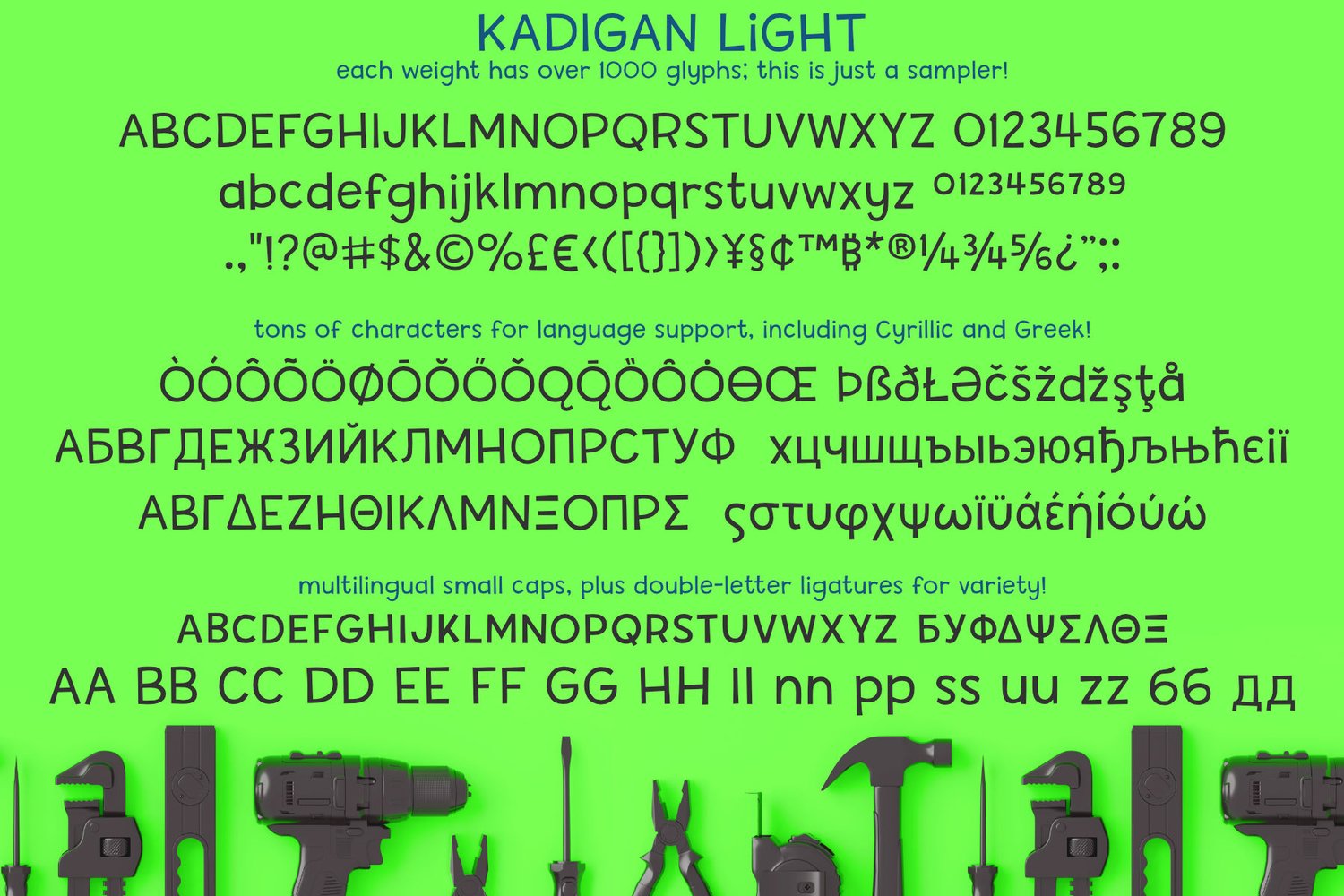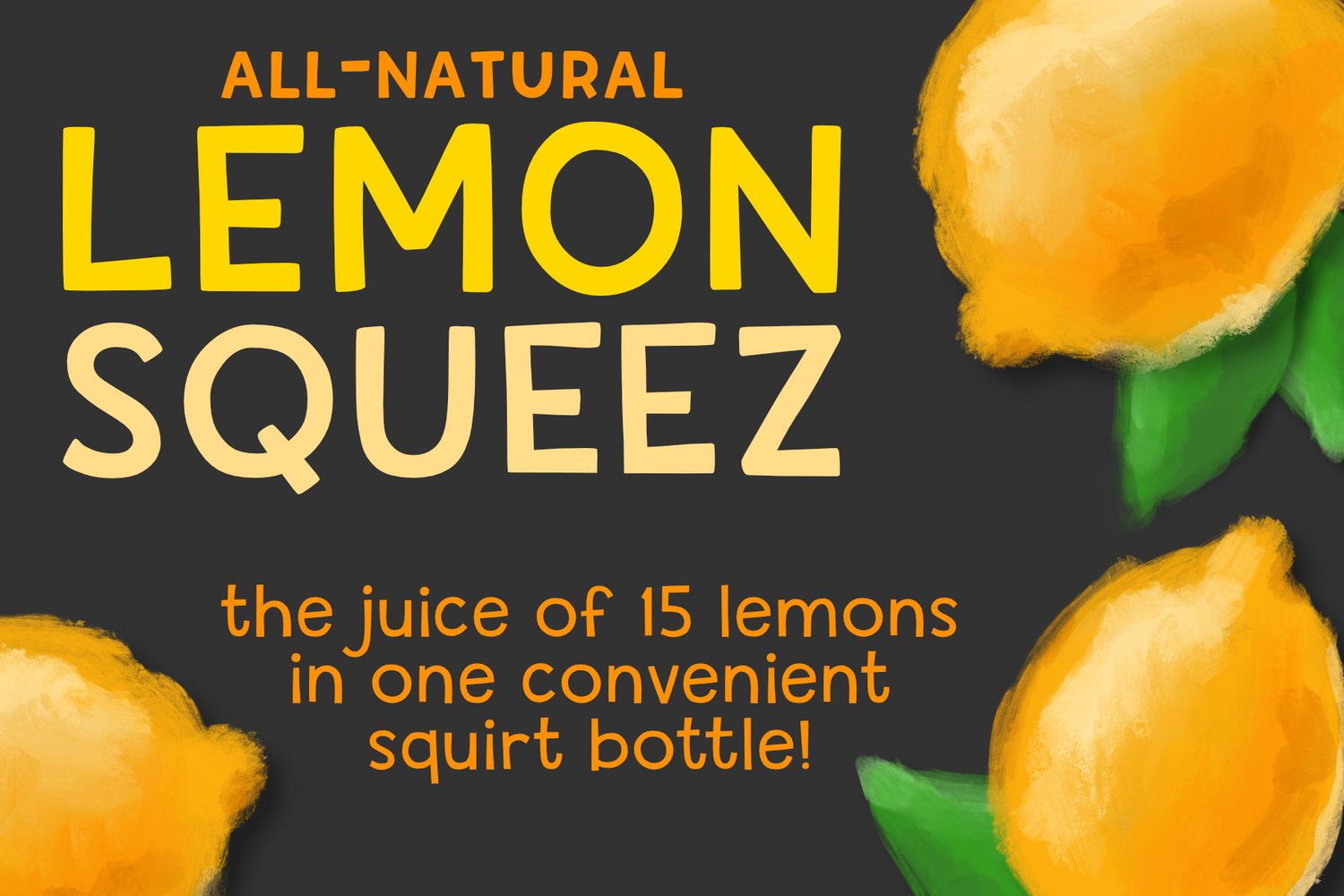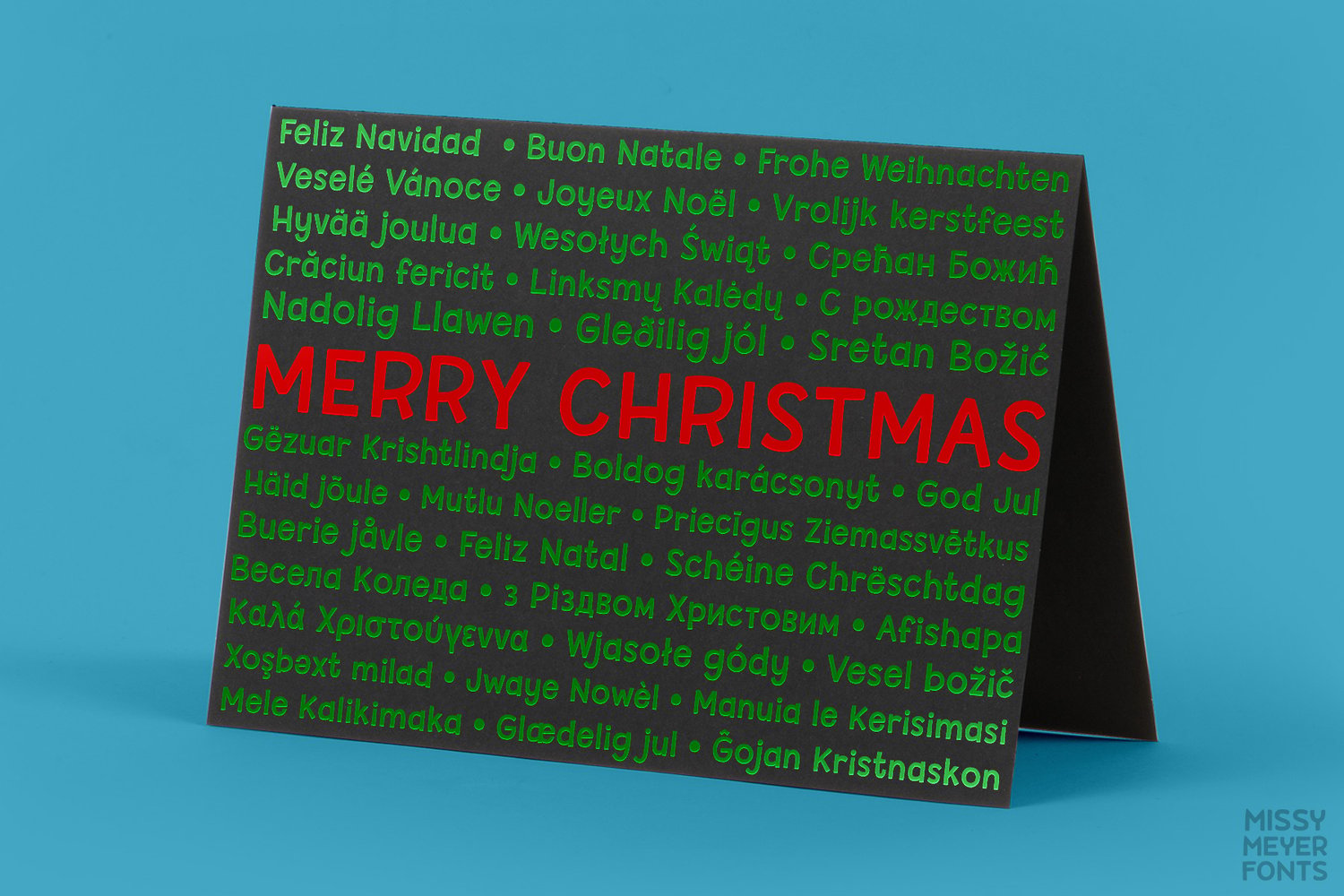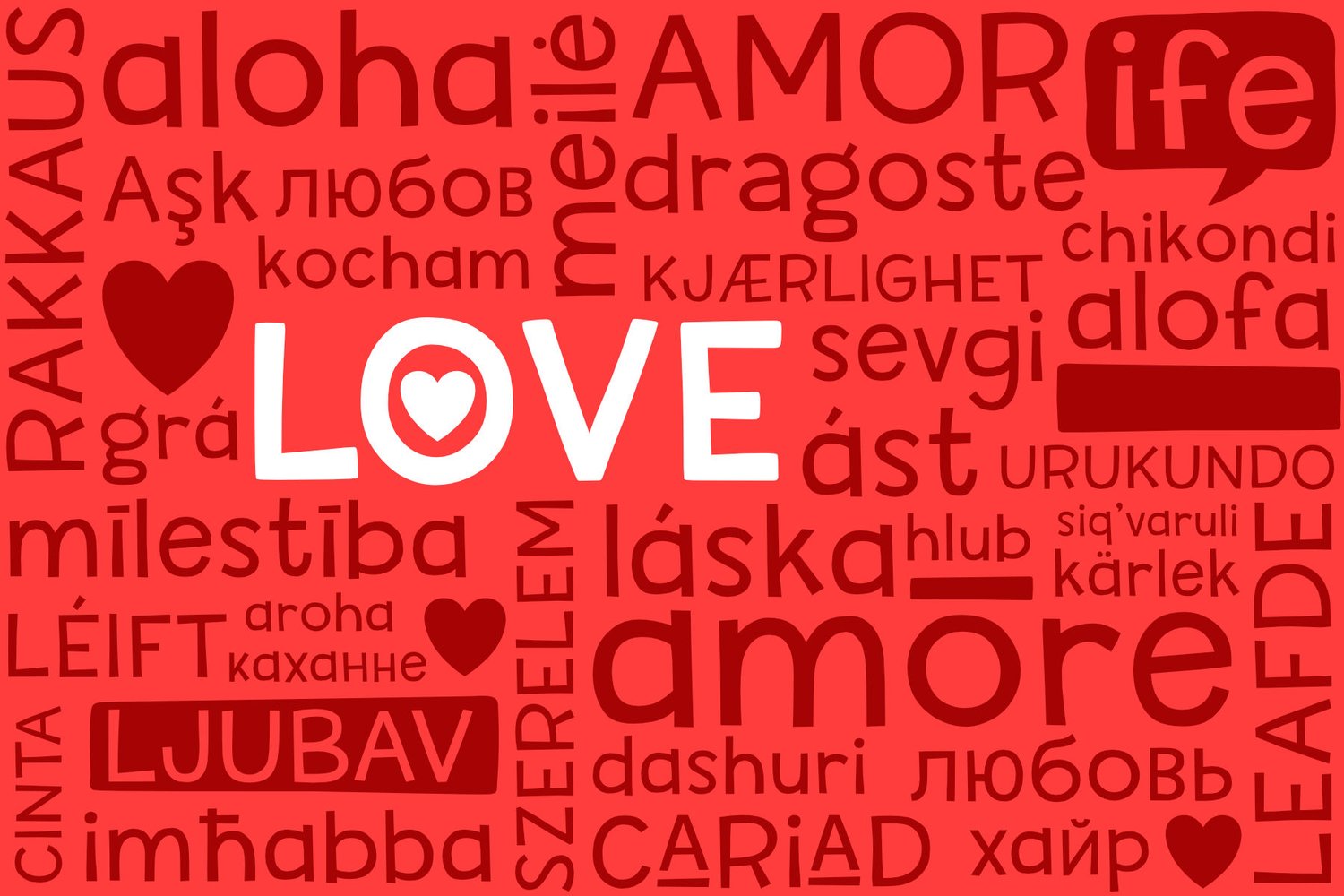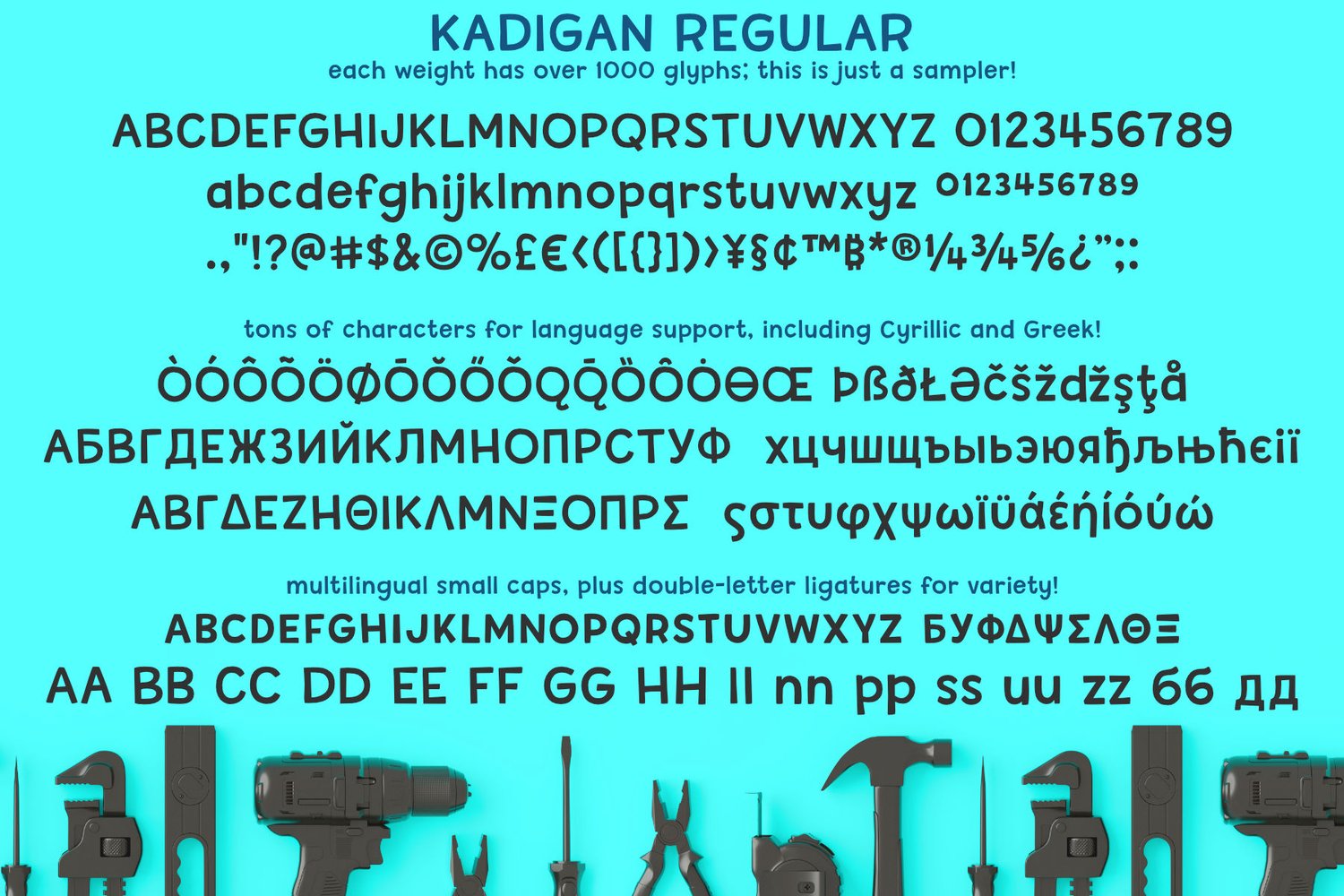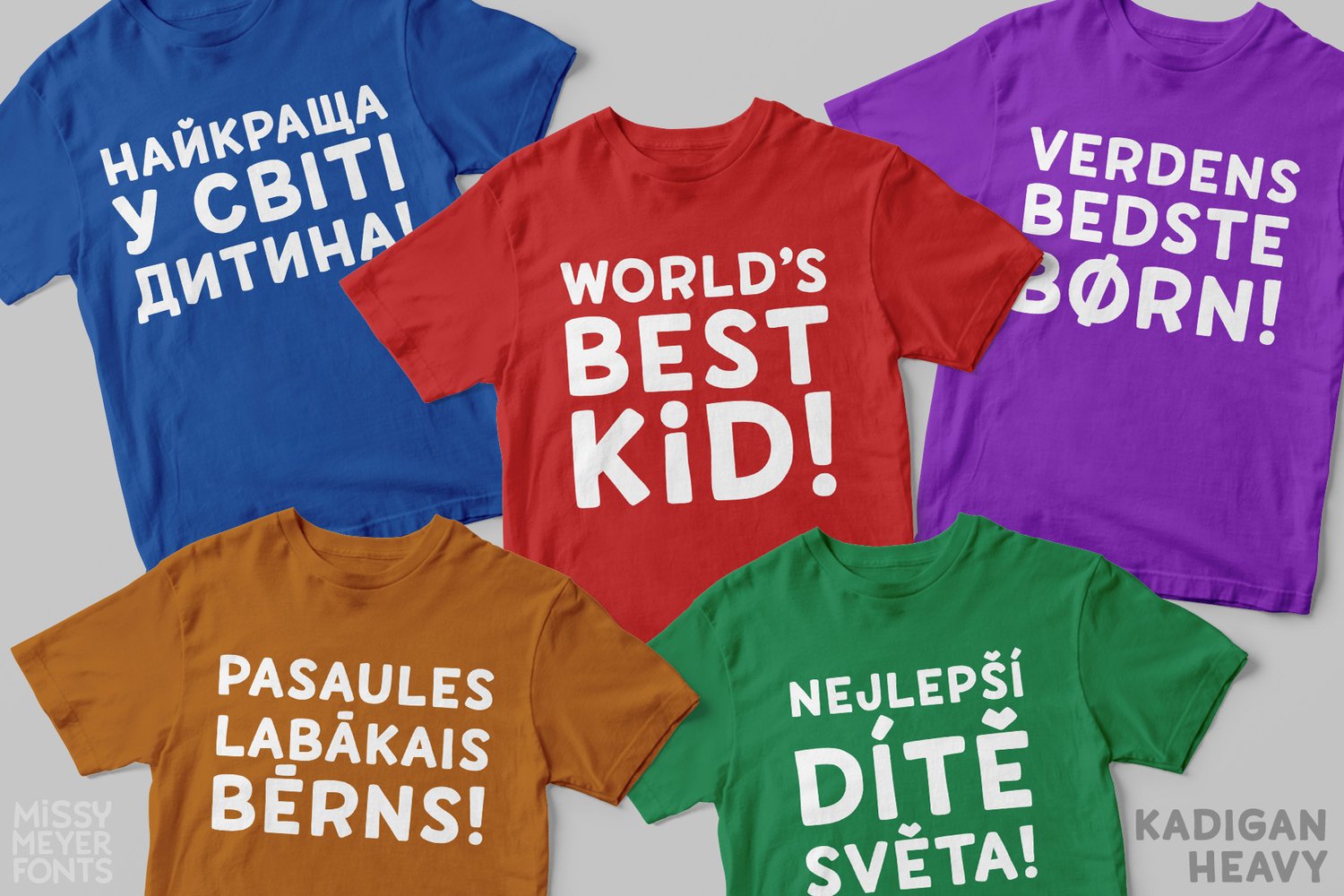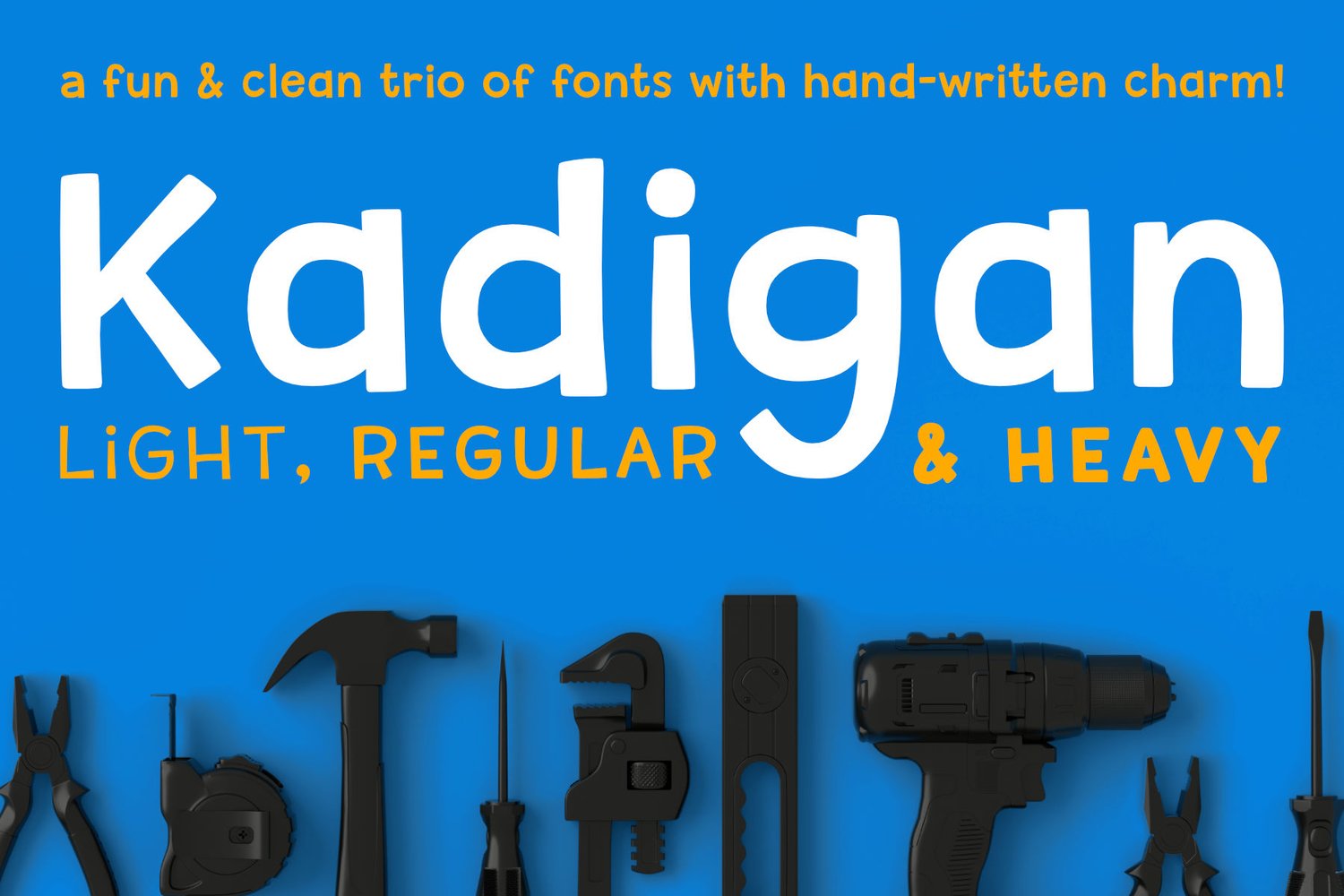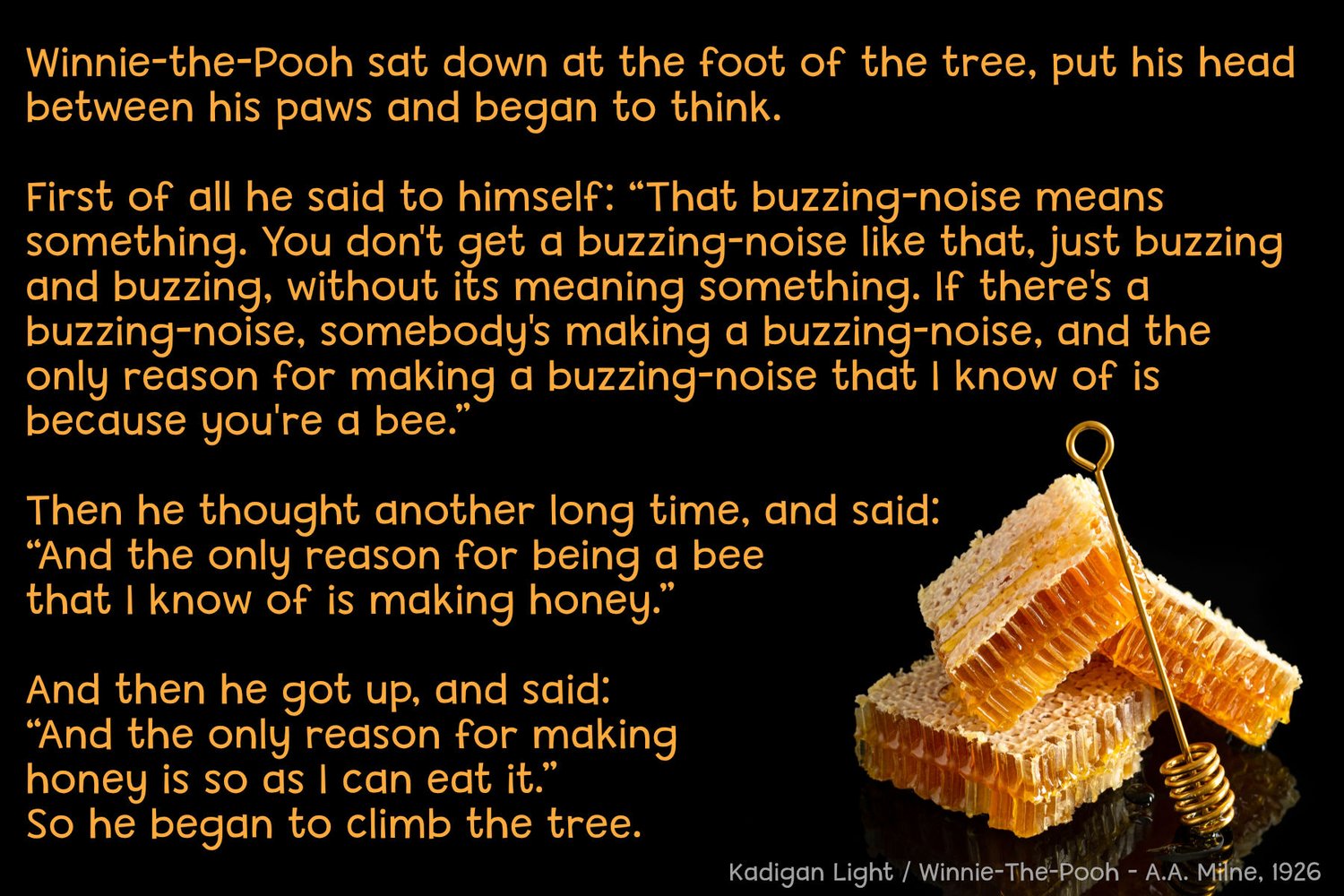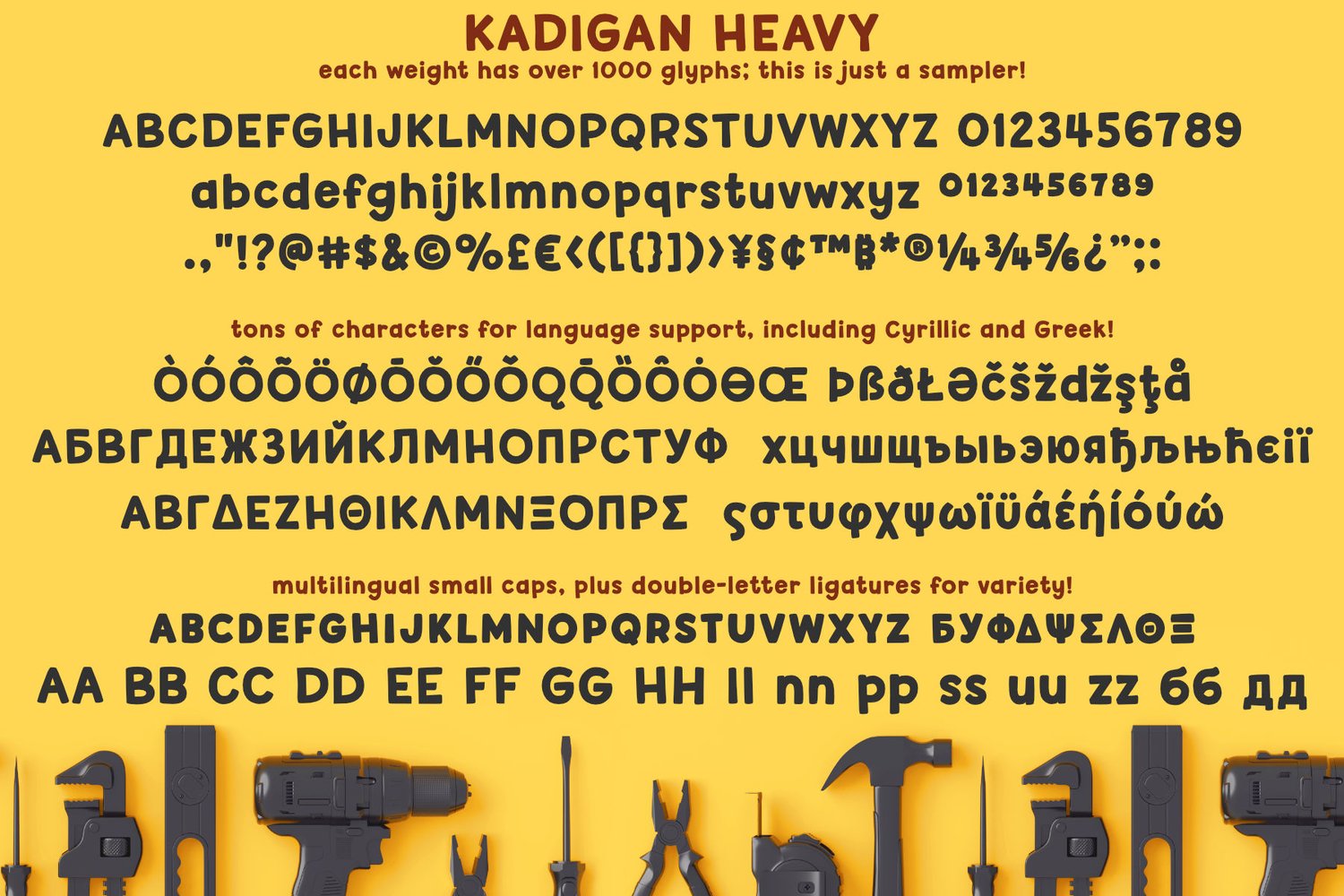
Kadigan
Kadigan: (noun) A placeholder word. A kadigan can be used to substitute for any other noun: persons (John Doe, Acme Company), places (Anytown, 123 Main Street) or things (whatchamacallit, thingamajig).
Just like kadigans can be used in nearly any situation, the members of the Kadigan font family can be used in nearly any design! These sans-serif beauties have reduced nodes and clean curves, so they'll always be sharp, clear, and easy to use. But they also have a little bit of wiggle in their strokes and weights, for a fun hand-lettered look!
The three members of the family:
- Kadigan Light: An all-purpose lightweight stroke, with sharp corners.
- Kadigan: A nice mid-weight stroke, with slightly rounded corners.
- Kadigan Heavy: A thick, chonky stroke with pillowy rounded corners.
And each member of the family is packed with features, including:
- All of the basic stuff you expect from every font;
- 340+ extended Latin characters;
- Cyrillic character set;
- Greek character set;
- Those character sets? Support over 110 languages!
- 52 double-letter ligatures for variety (That's right, EVERY letter. I'm looking at you, savvy revved trekkers!);
- A full set of small caps (including Cyrillic & Greek);
- And more! (Seriously, it was hard to stop.)
So whether your work is in English, Español, български, ελληνικά, Türkçe, or over a hundred other languages, this cute and fun sans-serif may be just what you've been looking for!